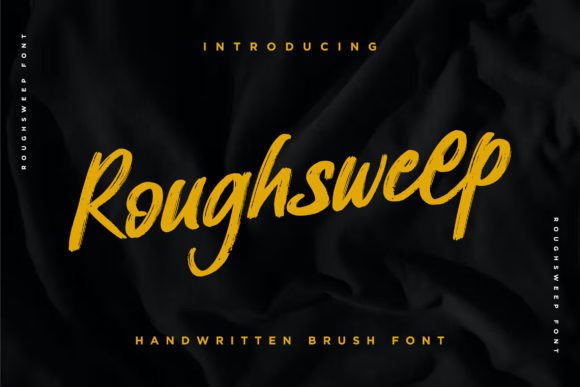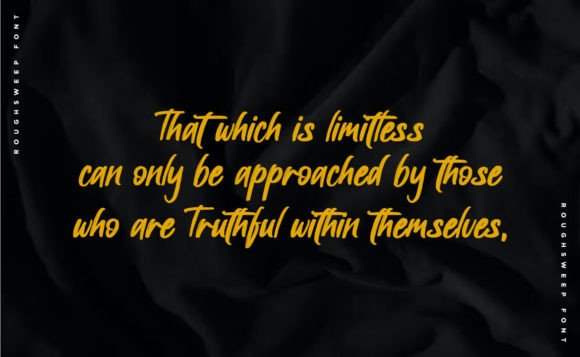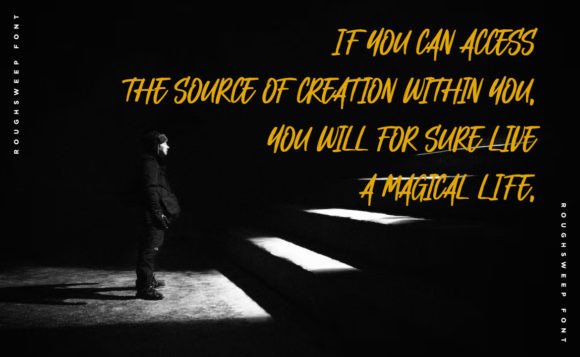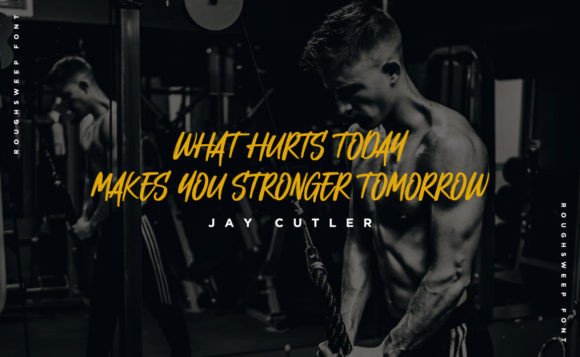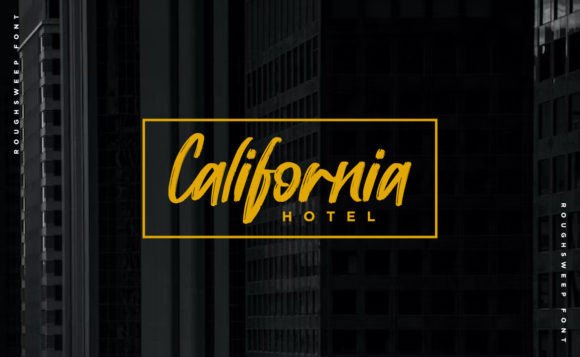
Roughsweep Font
A Casual and Natural Brush Script Font
Roughsweep Font is a casual and natural brush script typeface created with a hand-drawn approach. Each letter is made with a brush on paper, carefully scanned, and converted into a vector format, preserving the authentic and organic feel of the brush strokes. This font combines a raw, personalized style with a professional touch, making it perfect for a wide range of creative projects. Whether you’re working on blog titles, posters, or wedding invitations, the Roughsweep Font brings a unique, artistic vibe to your designs.
Perfect for Blog Titles and Digital Content
For blog titles and digital content, the Roughsweep Font is a great choice. Its brush script style gives your headlines a dynamic, energetic feel while remaining readable and eye-catching. Whether you’re designing for a personal blog, a corporate website, or a content-heavy platform, this font adds a touch of creativity and authenticity to your web designs. Its natural, hand-drawn appeal makes your blog titles stand out, drawing the reader’s attention with ease.
Ideal for Posters and Promotional Materials
The Roughsweep Font is also ideal for posters and promotional materials. Whether you’re creating event posters, flyers, or advertisements, this font’s brush script design adds an artistic, bold element to your materials. Its raw strokes and dynamic energy make it perfect for advertising products, promoting events, or creating promotional graphics for your brand. The Roughsweep Font helps you convey a sense of creativity, approachability, and raw authenticity in your marketing campaigns.
Perfect for Wedding Elements and Invitations
For wedding invitations and special event stationery, the Roughsweep Font offers a unique handwritten style that brings a personalized and romantic touch to your designs. Whether you’re creating save-the-dates, RSVP cards, or thank-you notes, this font adds a charming and artistic flair to your wedding materials. The brush strokes create a natural and organic feel, perfect for weddings looking to convey a casual, yet elegant atmosphere.
Great for T-shirts and Merchandise
For t-shirts, clothing, and merchandise designs, the Roughsweep Font ensures your products have a cool, artistic look that stands out. Whether you’re designing for a custom clothing line, music merchandise, or brand clothing, this font’s brush strokes give it a raw, personalized appeal. Its creative style is perfect for fashion brands looking to add a touch of artistry and individuality to their collections.
Ideal for Business Cards and Branding
For business cards and branding, the Roughsweep Font adds a unique, authentic touch to your business identity. Whether you’re creating a logo, business card, or marketing materials, this font’s brush script style ensures your brand feels approachable, memorable, and professional. The Roughsweep Font conveys creativity and personalization, making it perfect for creative agencies, small businesses, or startups that want to stand out in a crowded market.
Versatile, Legible, and Professional
Despite its casual and natural design, the Roughsweep Font remains legible and easy to use. The well-crafted letterforms and consistent spacing ensure that your text is clear and readable, even for longer passages or smaller sizes. Whether you’re using it for headlines, captions, or body text, this font strikes the perfect balance between creativity and readability, making it ideal for a wide range of design applications, from print to digital media.
The Roughsweep Font is easy to use and integrates smoothly into most design software. Whether you’re working on logos, posters, wedding invitations, or branding materials, this font ensures your designs look polished and professional while maintaining a casual, authentic feel. Its versatility makes it perfect for both print and digital media, giving you the flexibility to use it across various projects with ease.
Add a Creative Touch to Your Designs with Roughsweep Font
If you’re looking for a casual, handwritten brush script font that adds a personalized, artistic touch to your designs, the Roughsweep Font is the perfect choice. Whether you’re designing logos, posters, wedding invitations, or social media content, this font helps you create memorable, dynamic designs with a raw, creative energy. Let the Roughsweep Font elevate your projects and leave a lasting impression with its authentic, artistic appeal.